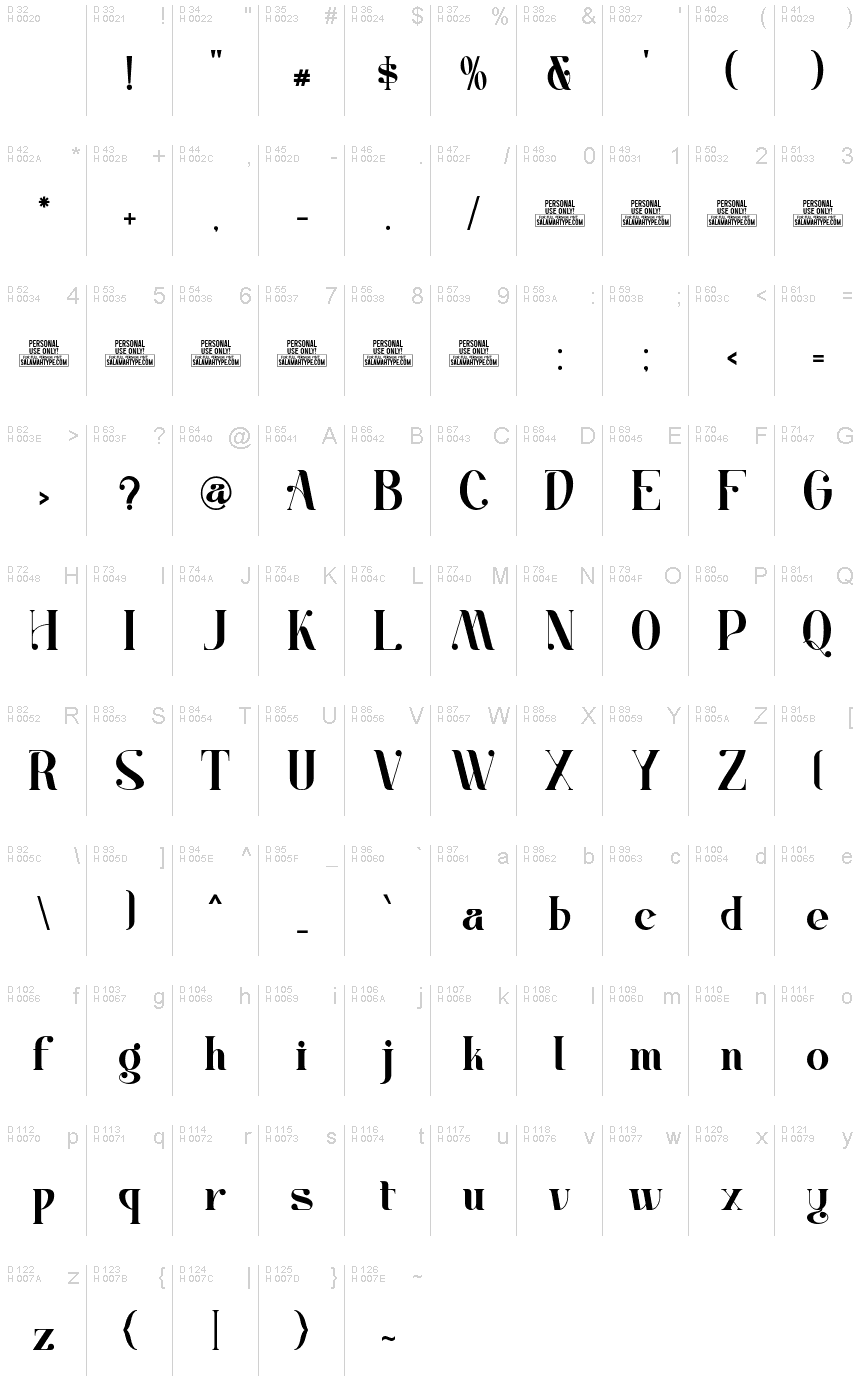
Meriyan Personal
Meriyan, a captivating and versatile font designed by Salamahtype.com, boasts a unique serif style that seamlessly blends elegance with modernity. Its refined lines and distinctive curves make it perfect for sophisticated branding projects, such as high-end fashion labels or luxury hotels. With its attention-grabbing letterforms, Meriyan takes center stage in editorial designs like magazines and book covers. This font's versatility extends to wedding invitations and event promotions, adding a touch of refinement to any celebration. Whether you're looking to add an air of sophistication or contemporary flair, Meriyan is the ideal choice for your next creative endeavor.